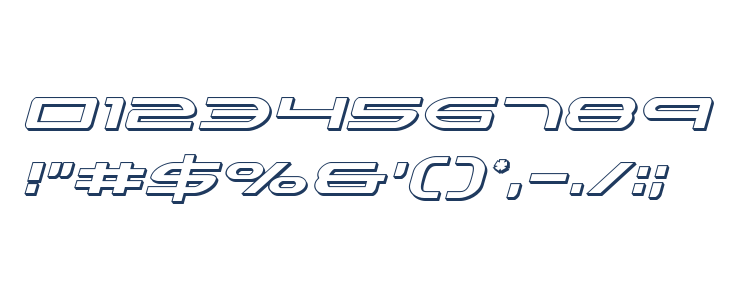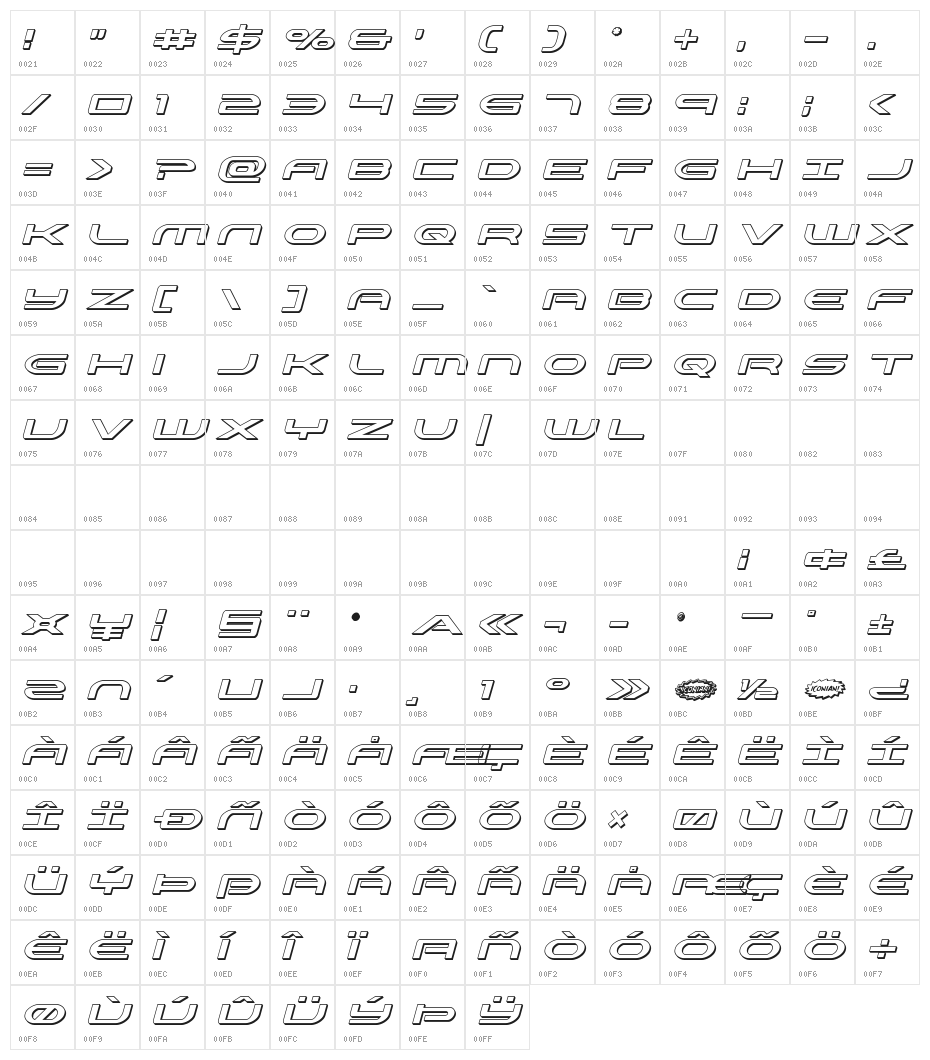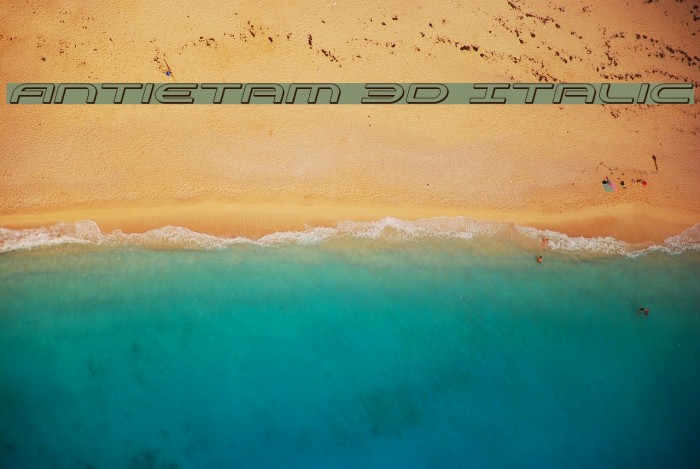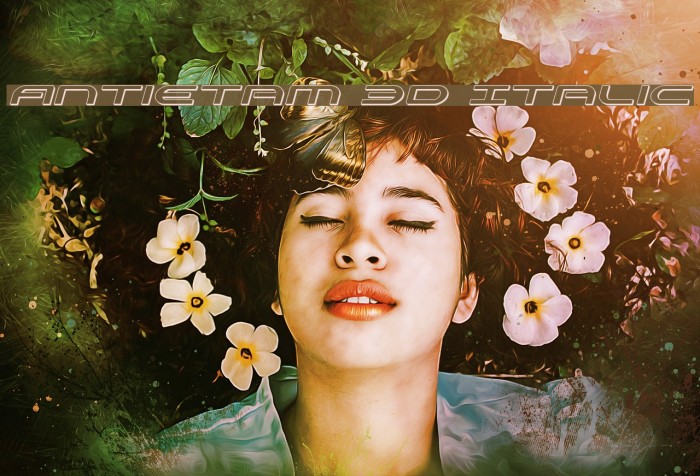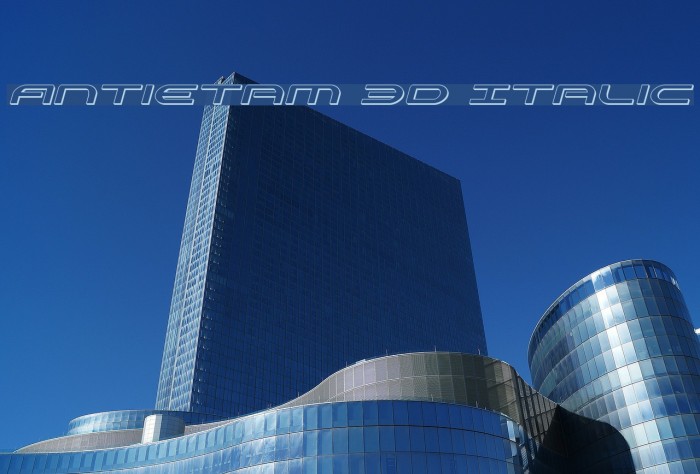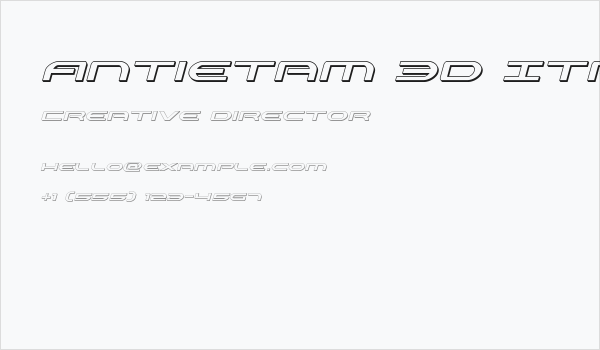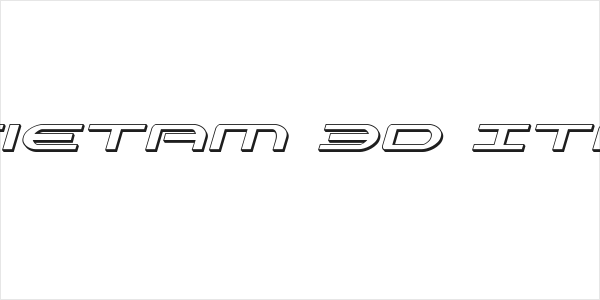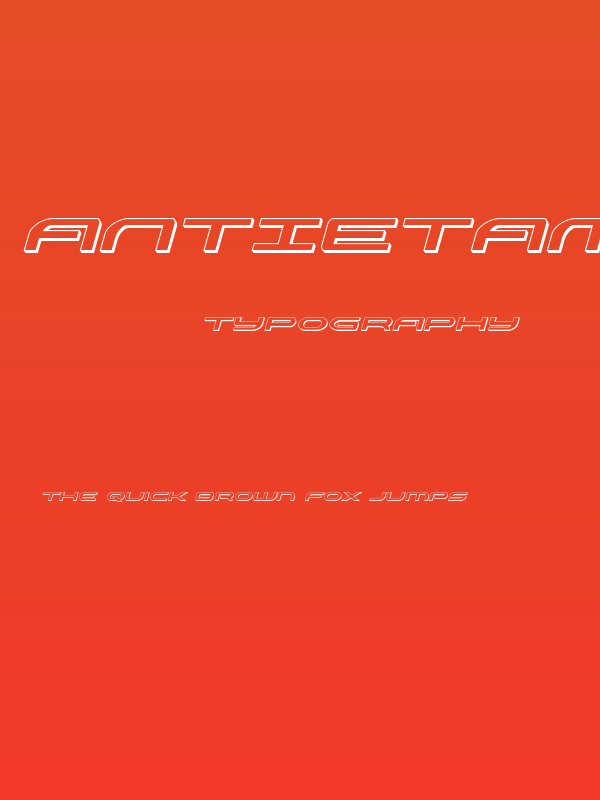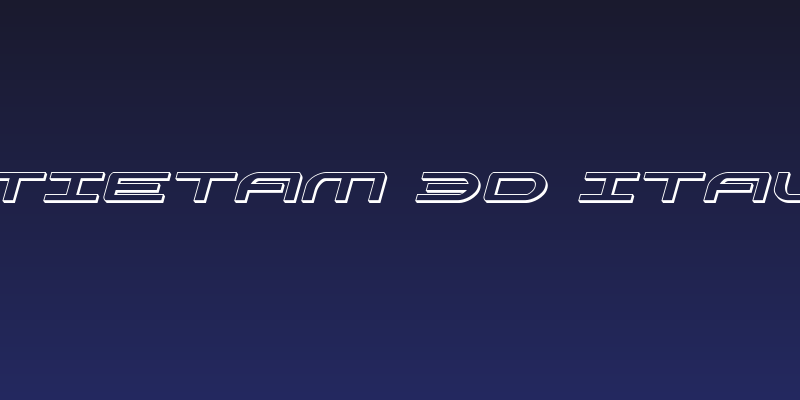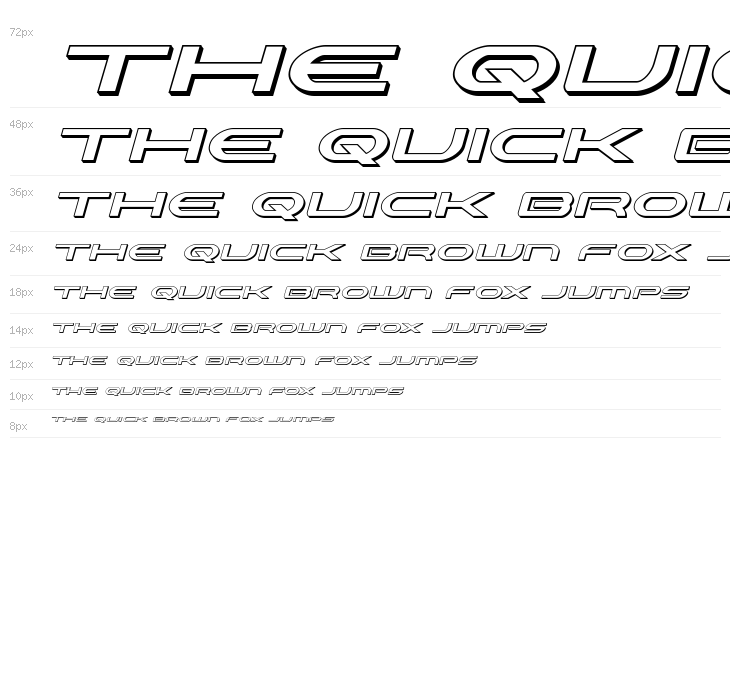
Antietam 3D Italic Font
Antietam 3D Italic Description
This font features a distinct 3D effect with an italicized slant, giving it a dynamic and futuristic appearance. The characters are outlined, creating a hollow effect that adds depth and dimension. The uppercase and lowercase letters maintain a consistent style, with geometric shapes and sharp angles. The numbers and special characters follow the same design principles, ensuring uniformity across all glyphs. This font's unique style makes it stand out, suitable for creative and modern design projects.
| Proposed Projects | Ideal for sci-fi themed designs, video game titles, posters, and branding that requires a modern and edgy look. |